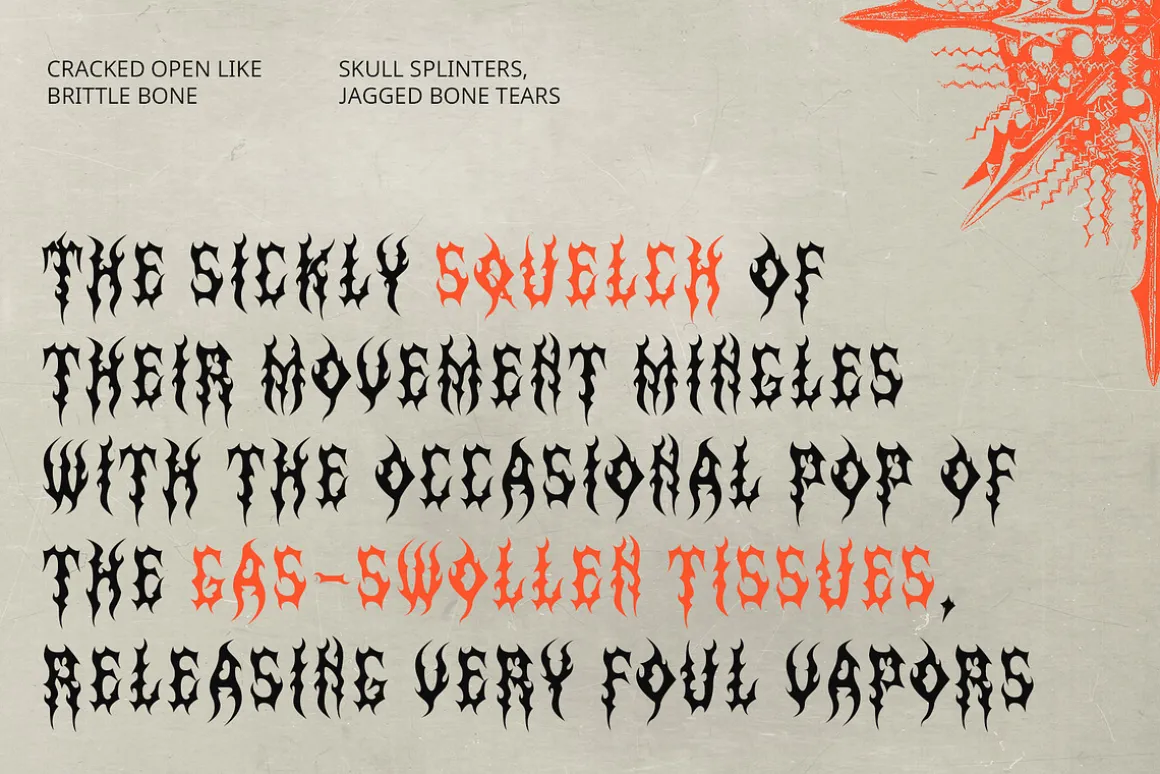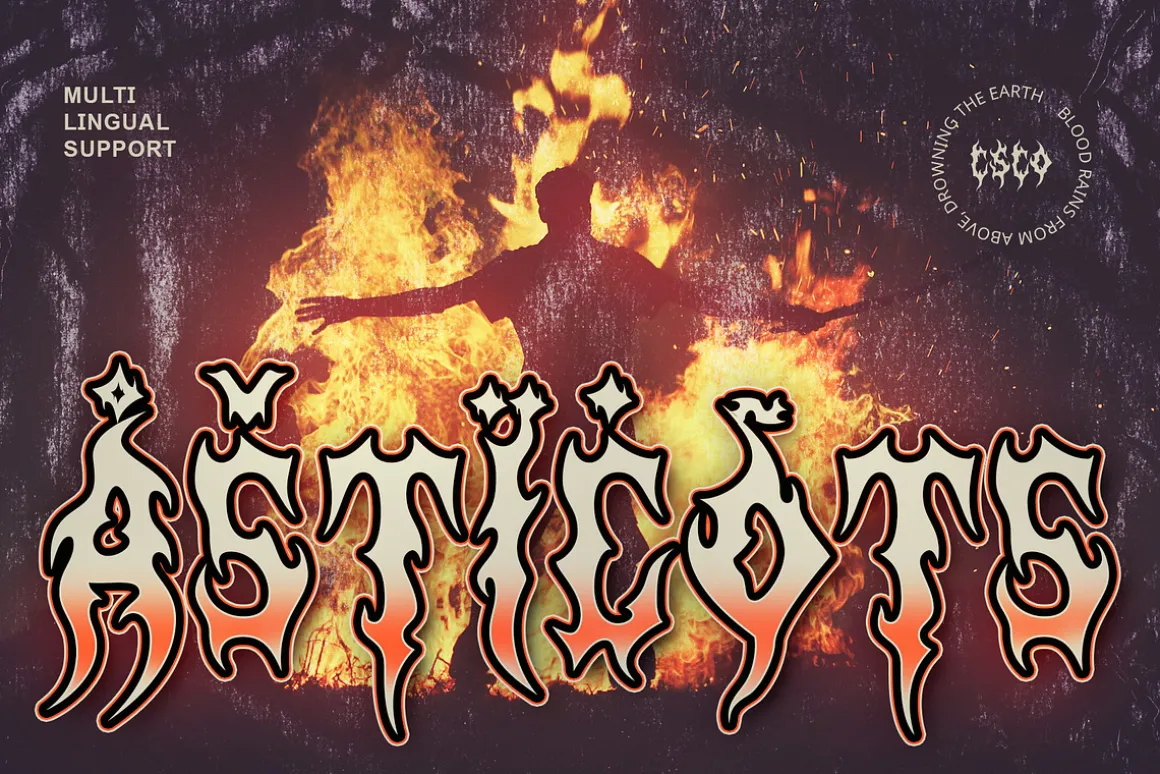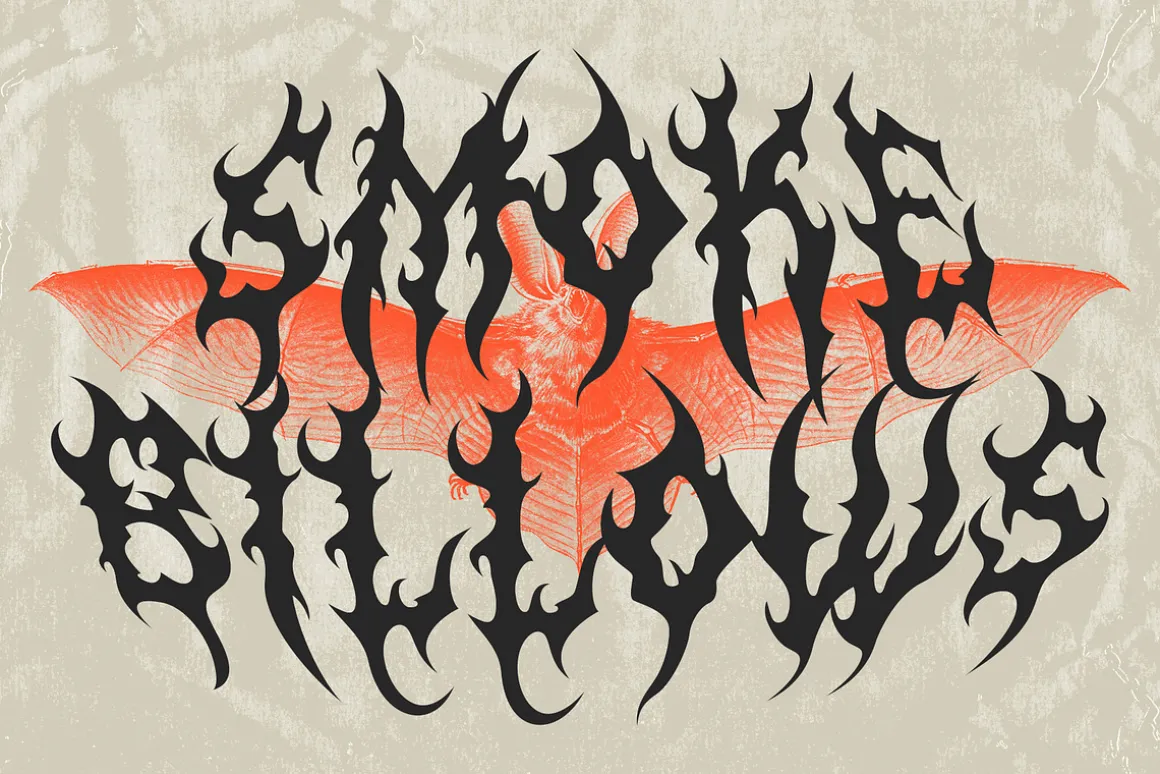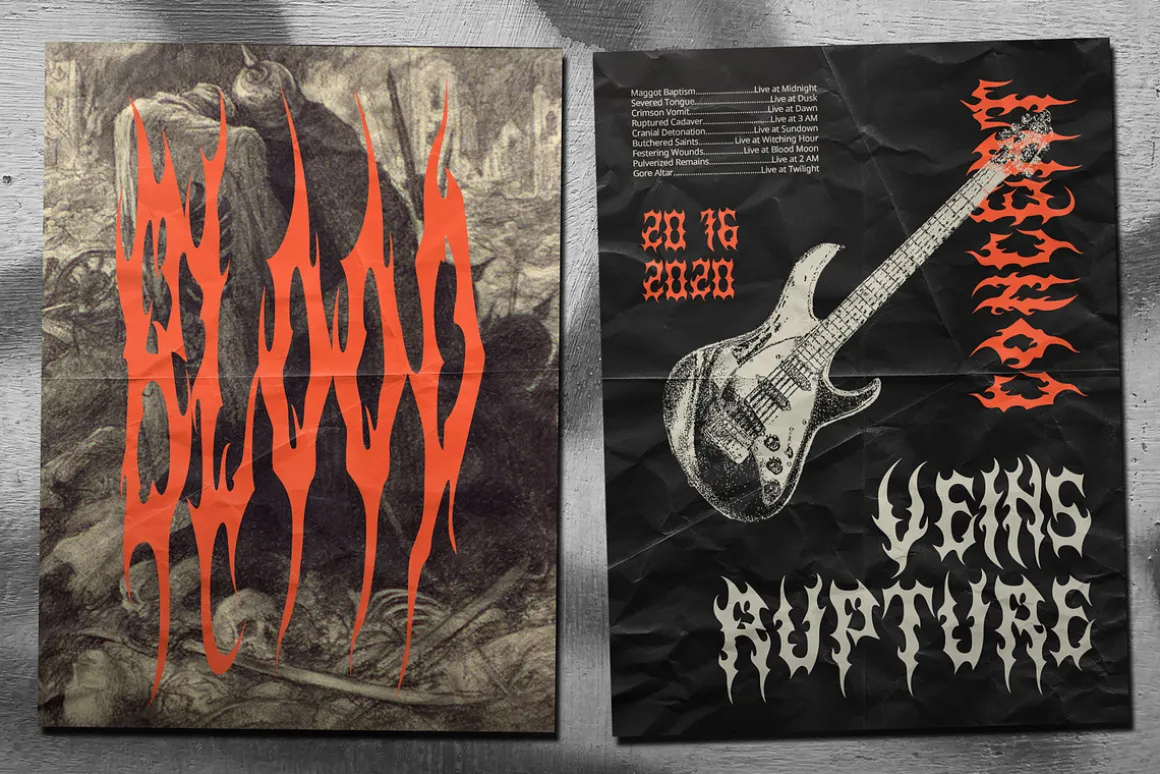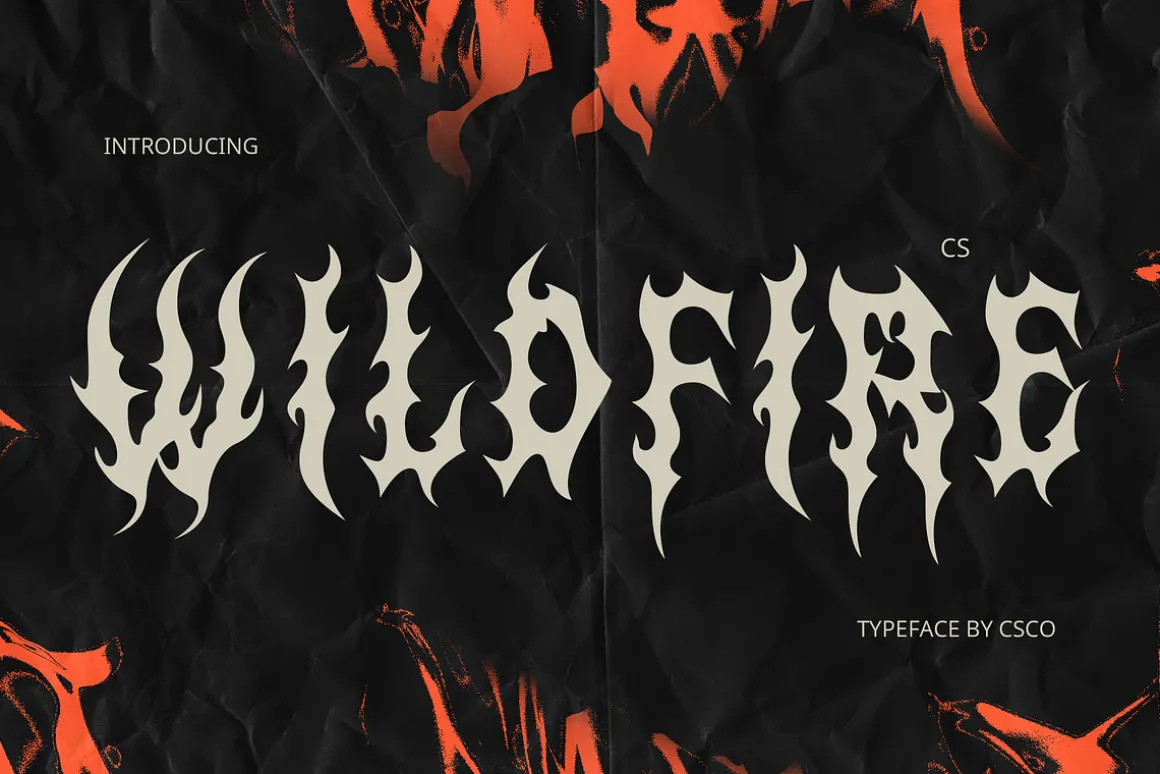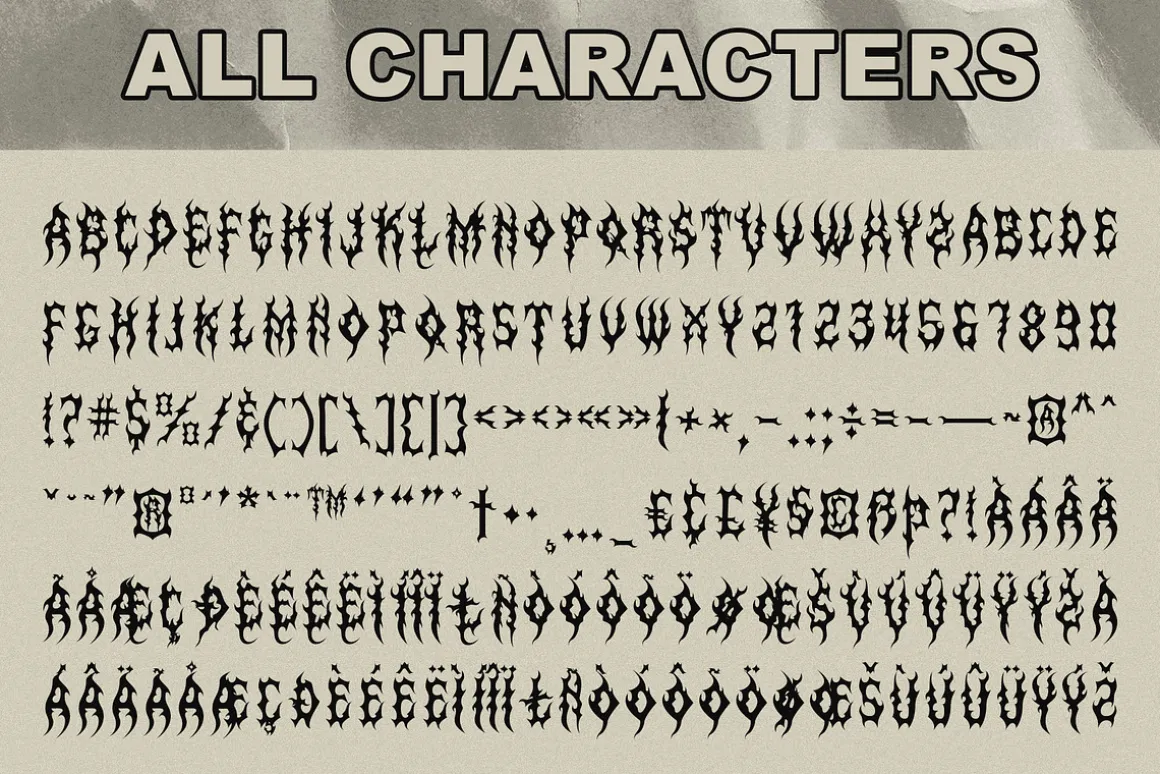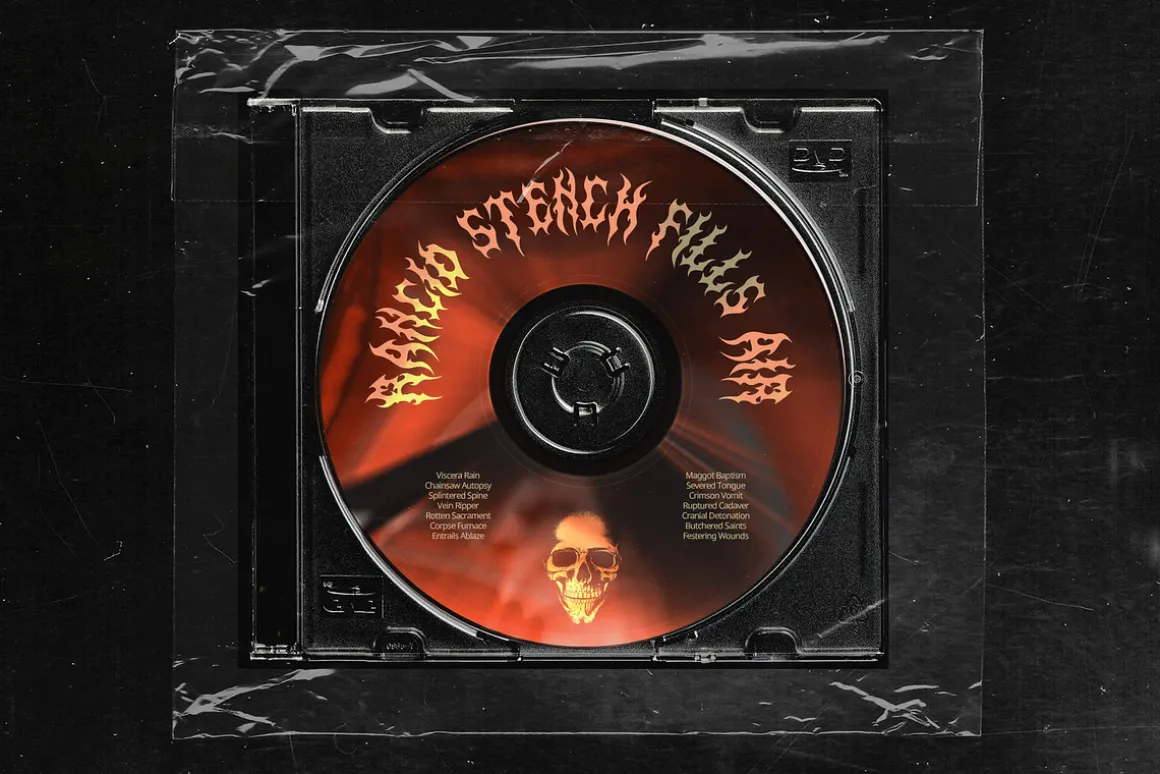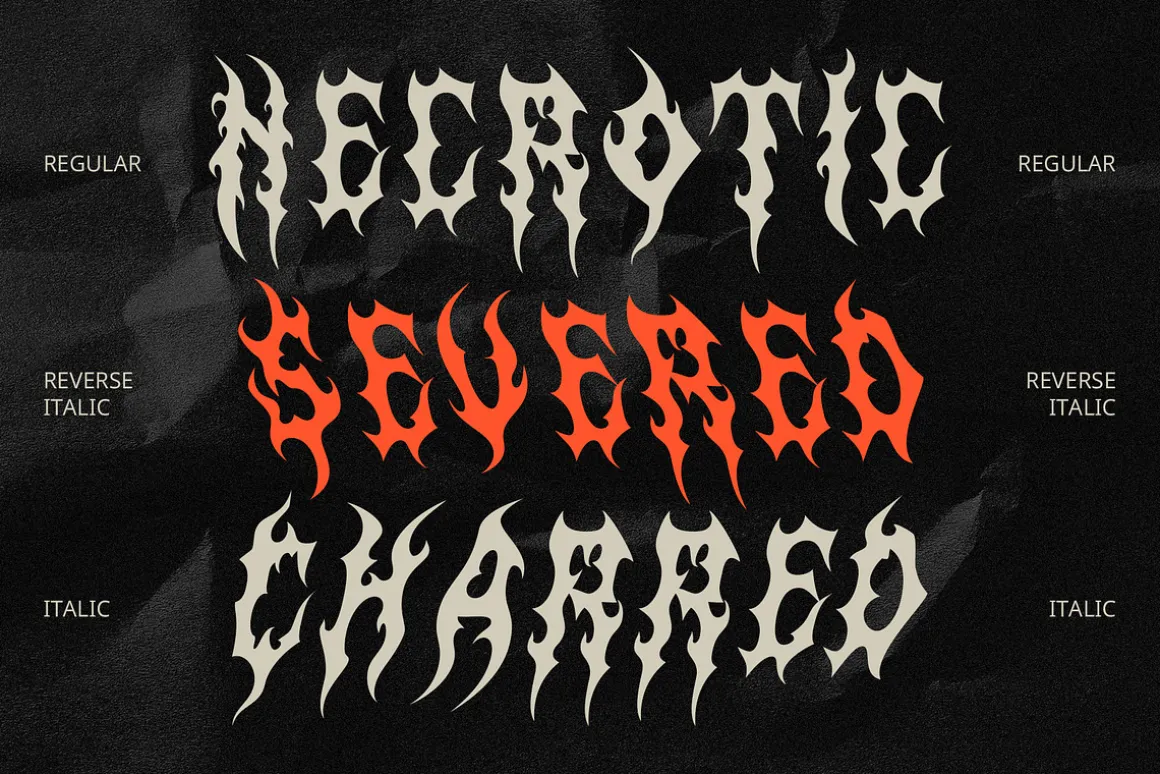
CS Wildfire – Black Metal Font: Raw Chaos and Dark Intensity
Aggressive and Distorted Black Metal Display FontCS Wildfire is a Black Metal display font with a rough texture and chaotic, jagged letterforms. Its distorted, abstract structure mimics the raw energy of extreme metal aesthetics, evoking an uncontrolled and rebellious presence. The font’s sharp edges and twisted strokes resemble burning branches, dripping ink, or cracked stone, adding a uniquely dark and aggressive touch to any design.
Gothic Calligraphy Meets Extreme ExpressionDrawing inspiration from Gothic calligraphy and underground metal culture, CS Wildfire fuses traditional mysticism with a brutal, avant-garde edge. Its elongated, fractured letterforms and uneven baseline enhance its eerie, unrestrained aesthetic, making it ideal for projects that demand intensity and darkness.
Perfect for Extreme and Horror-Themed DesignsCS Wildfire is tailor-made for Black Metal band logos, album covers, concert posters, horror themes, and experimental artwork. Its haunting, chaotic structure brings an unmistakable, aggressive atmosphere, ensuring a commanding visual impact that aligns with dark and extreme subcultures.
A Font That Commands AttentionWith its wild, untamed energy and uniquely eerie form, CS Wildfire is perfect for designers looking to break conventional typography norms. Whether for metal branding, horror visuals, or avant-garde projects, this font delivers raw power, mysticism, and an unmistakable presence, making it a bold statement of rebellion and artistic freedom.
- CS Wildfire Regular
- CS Wildfire Italic
- CS Wildfire Reverse Italic
- Uppercase and lowercase characters
- Numerals and Punctuation (OpenType Standard)
- Accents (Supports Multilingual Characters)